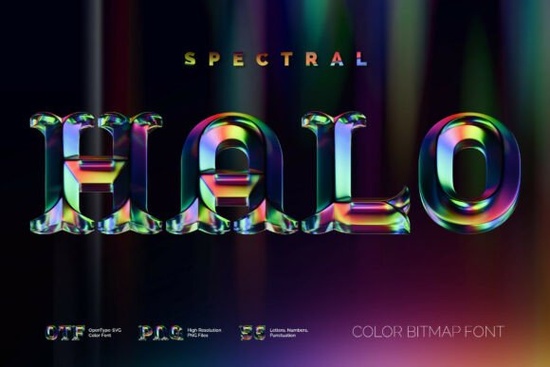
Looking for a font that literally shines? The Spectral Halo Font is a colorful 3D typeface with beveled, vintage-style letters and an abstract glass texture that catches light in eye-catching ways. It's a color bitmap OpenType-SVG font, which means you install it and use it just like a regular OTF file but the letters come with built-in color, depth, and texture. If you work on posters, social media graphics, packaging, or print-on-demand designs, this kind of font can save you hours of manual shading and layering.
What exactly is a color bitmap font, and how does it work?
Traditional fonts are single-color vector outlines. A color bitmap font (also called an OpenType-SVG font) embeds full-color bitmap images inside each glyph. When you type, each letter renders with its own detailed color texture in this case, a glossy, beveled glass effect with light reflections.
Keep in mind that some older or simpler applications may not display the color glyphs correctly. The font supports English only and basic punctuation, so always check the included character screenshot before purchasing to make sure it covers what you need.
Where does a colorful 3D font like this work best?
The beveled glass look of Spectral Halo fits naturally in certain types of projects. Here are a few ideas worth trying:
- Event posters and flyers especially for parties, music events, or seasonal sales
- Social media headers and thumbnails the built-in texture grabs attention at small sizes
- Book covers and album art vintage meets modern glass effects
- YouTube and Twitch graphics eye-catching titles without extra Photoshop work
- Greeting cards and invitations especially for birthdays or celebrations
- Print-on-demand products mugs, tote bags, t-shirts with bold headline text
If you're building a collection of colorful display fonts for client work or your own shop, this one fills a niche that most script or sans-serif fonts don't cover.
How does it compare to other colorful fonts?
Spectral Halo stands out because of its vintage beveled style combined with a glass-like light effect. Many colorful fonts lean toward playful or cartoonish looks. This one has more of a retro-futuristic feel. That said, if you're also exploring fun, lighthearted typefaces for pet-themed designs or kids' projects, a font like cute dog font pairs well in a broader font library for varied client needs.
A few things to keep in mind before buying
Color font technology is still relatively new. While support is strong in professional apps, it's worth testing in your specific workflow. Here's a quick pre-purchase checklist:
- Check your software make sure the app you use daily supports OpenType-SVG fonts
- Review the character set English letters and basic punctuation only; no extended Latin or special symbols
- Consider the PNGs as backup if your app doesn't support the font directly, the transparent PNGs let you use each letter as a graphic layer
- Test at your output size bitmap fonts are resolution-dependent, so confirm the look works for your final print or screen size